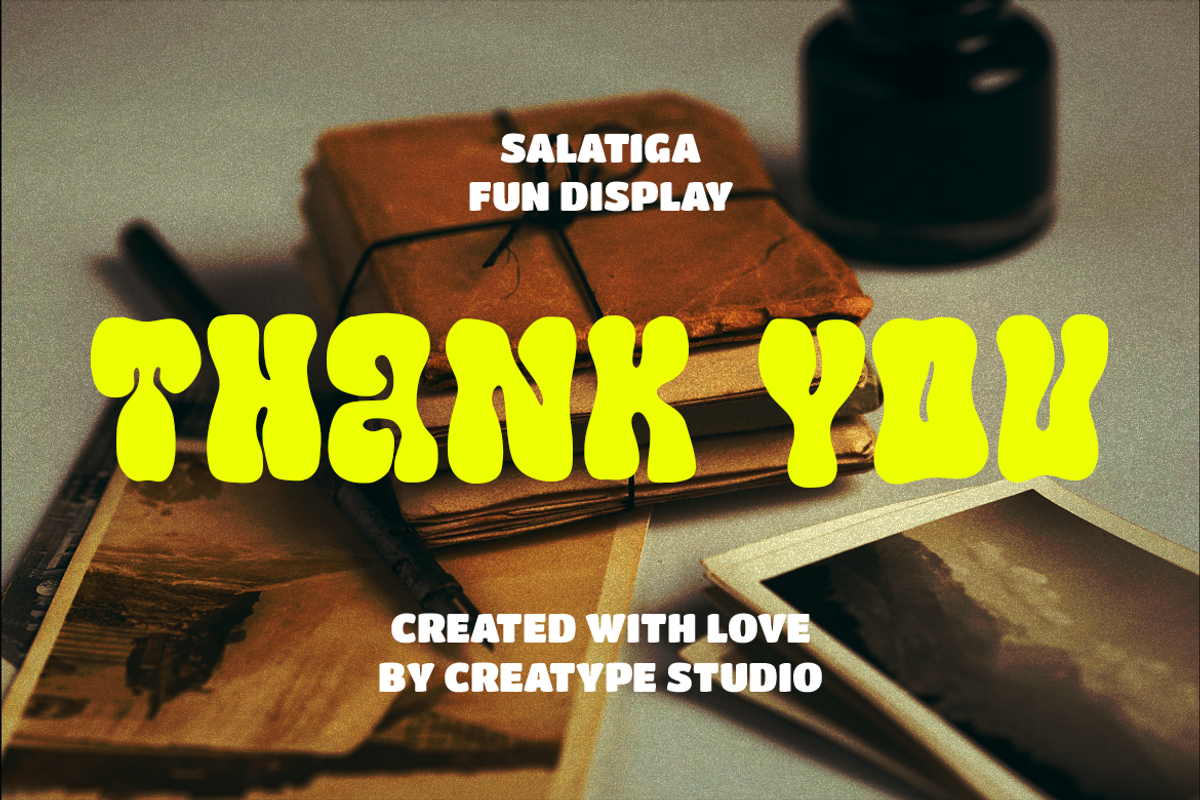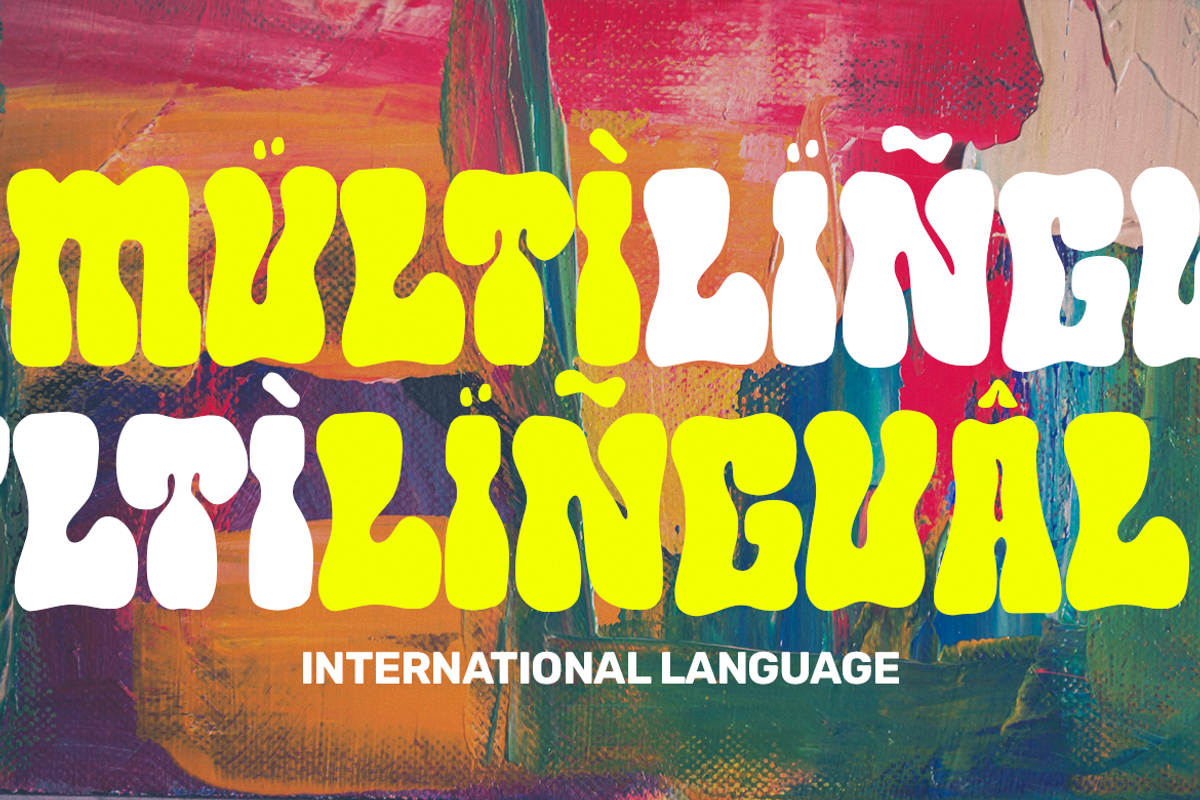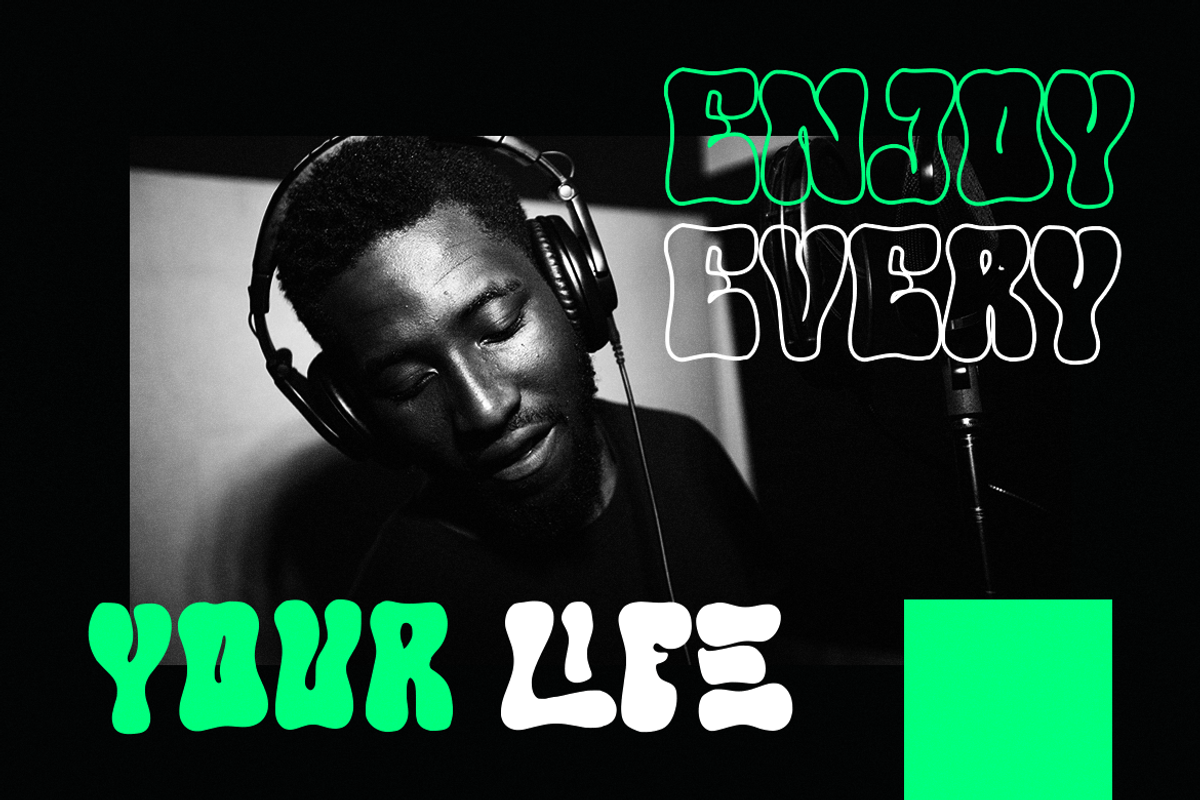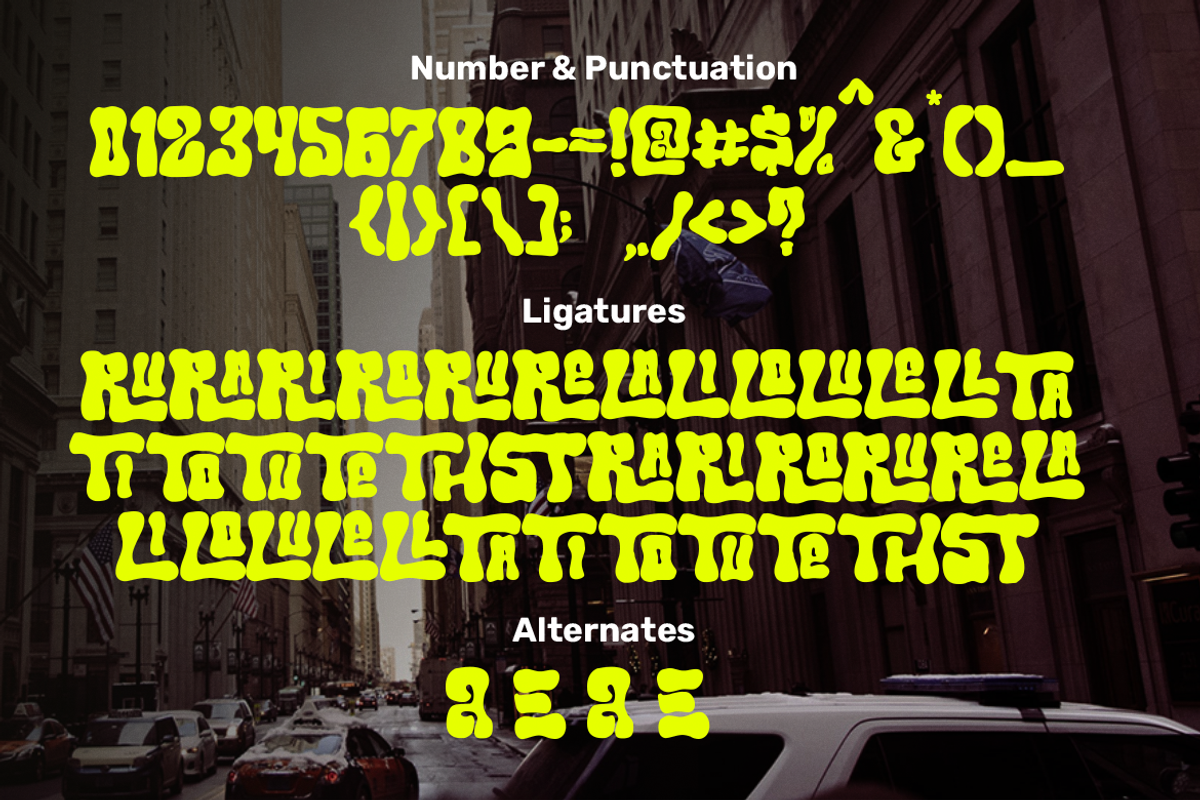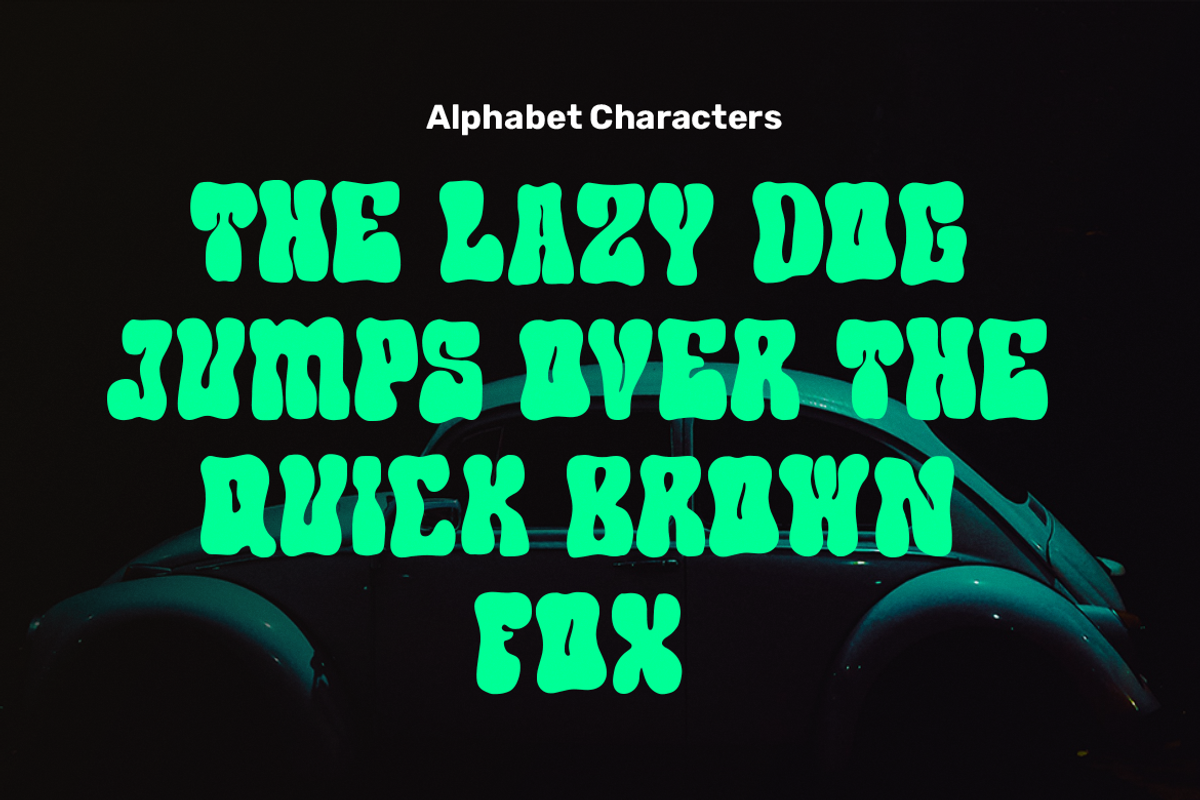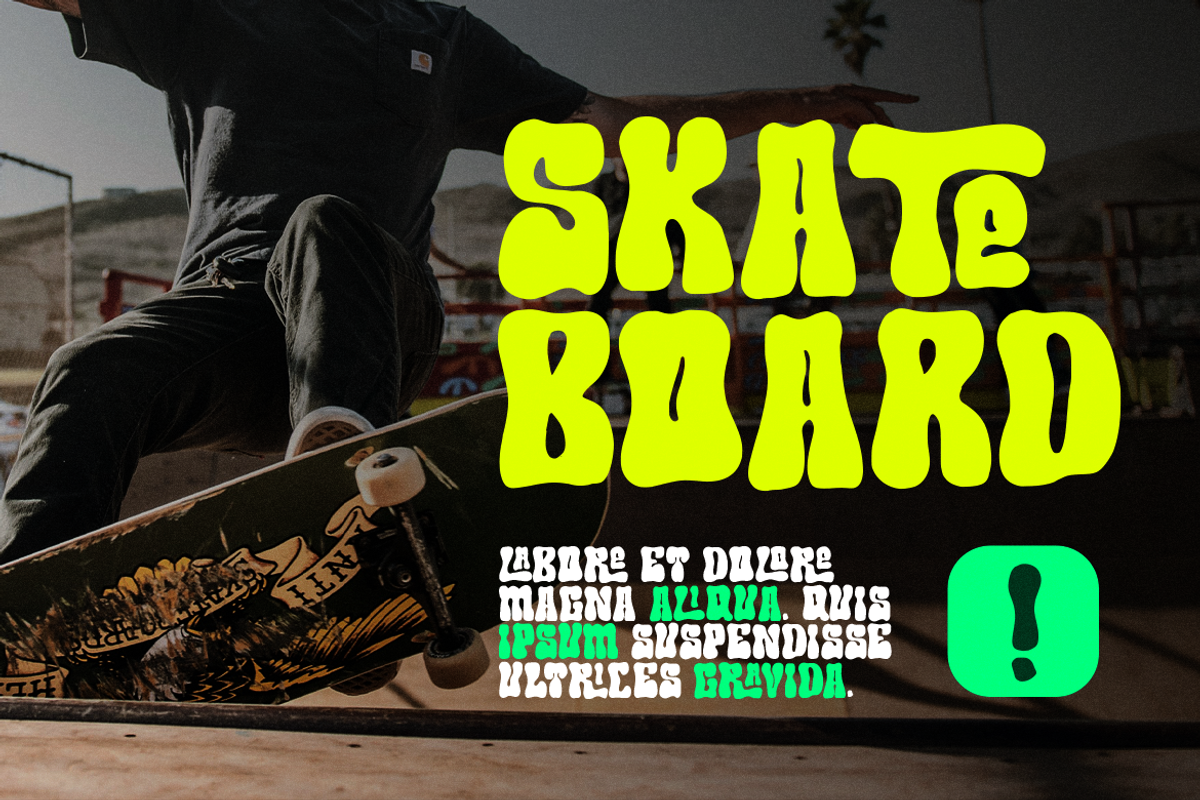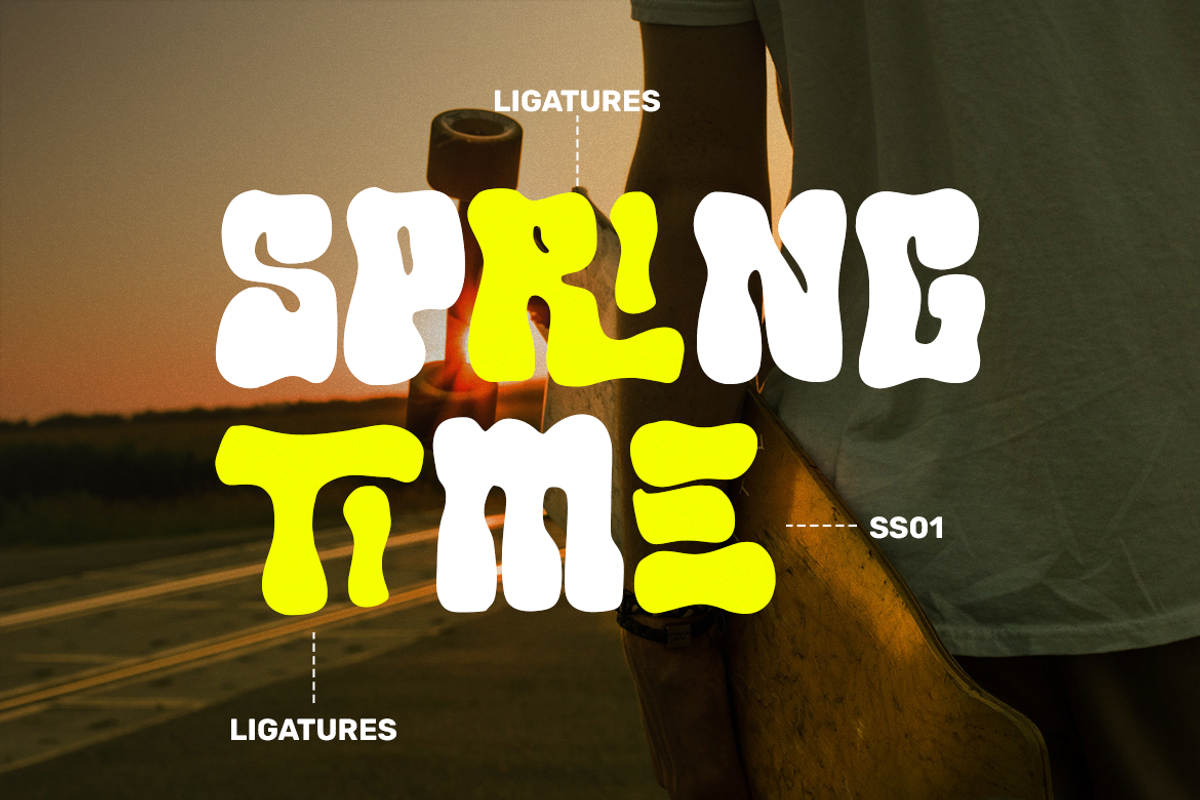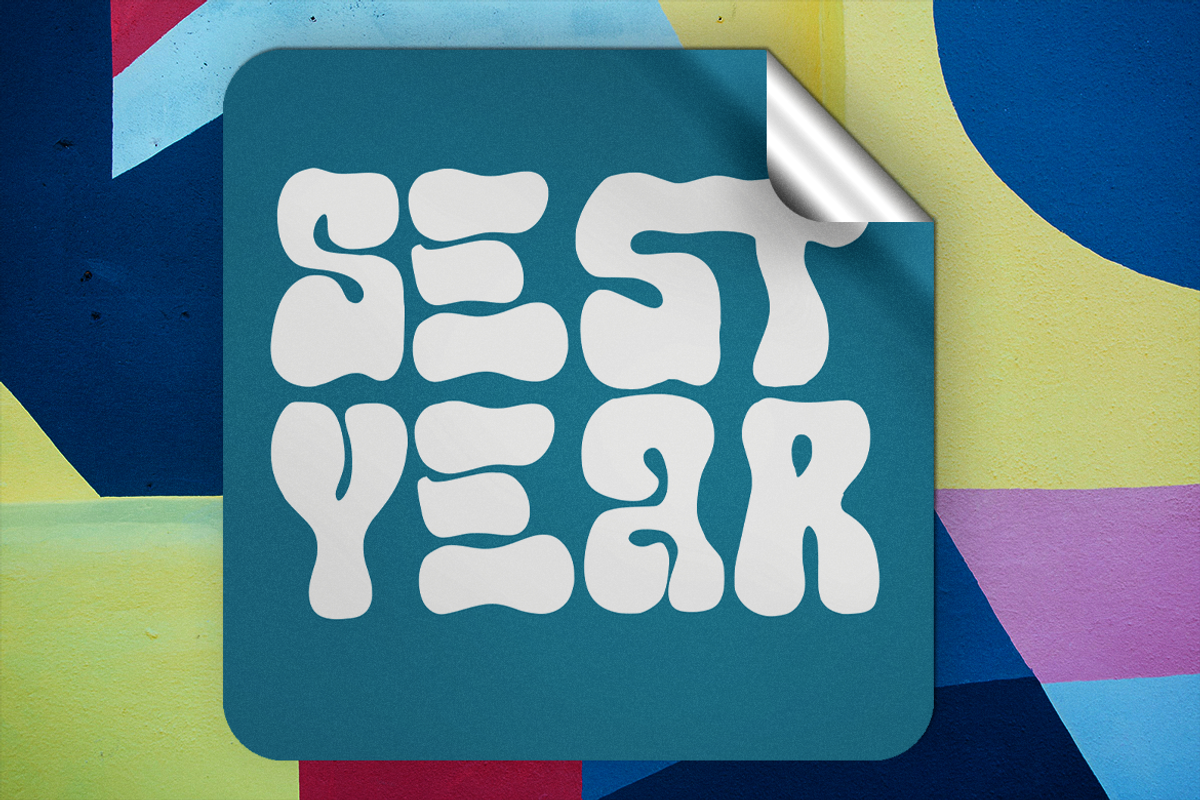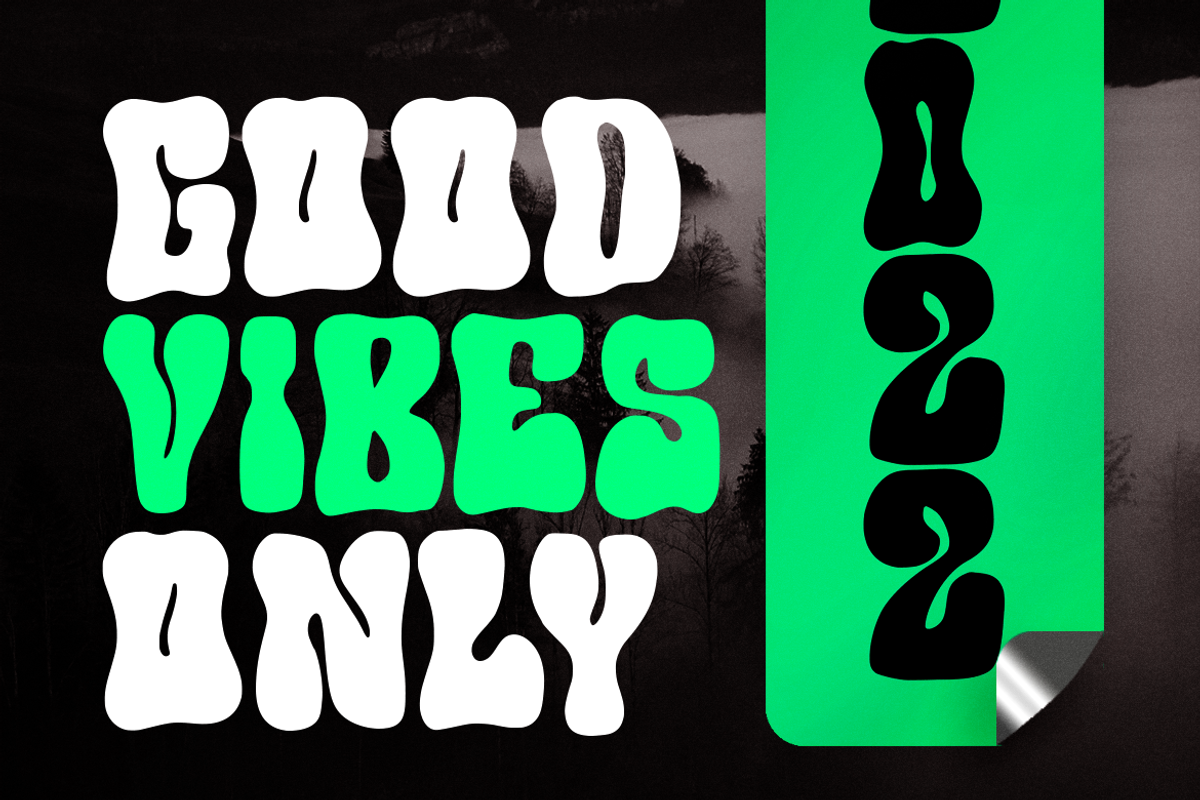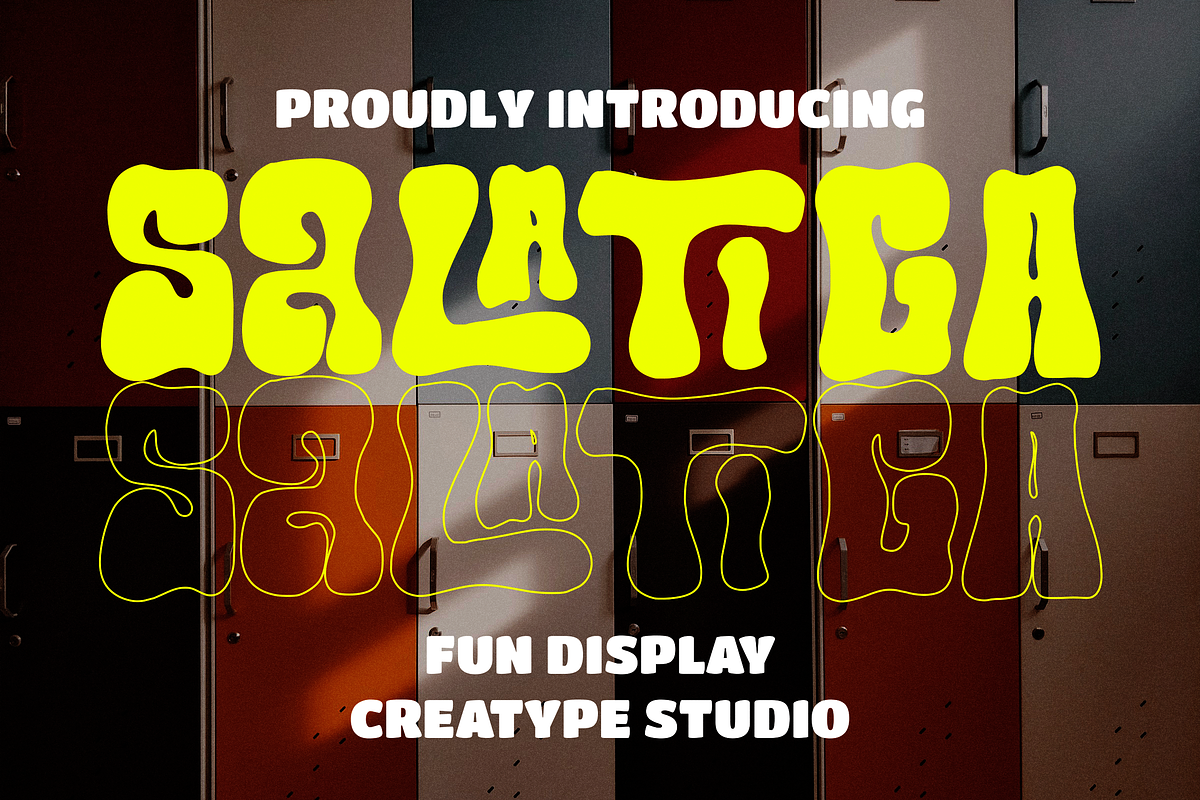
Salatiga Display Fun
The next level of fun display font introduces Salatiga. The bulky and attractive looks emphasize the fun side of your design. This typeface that Creatype made is perfect for your outstanding design projects.
Salatiga is perfect for branding projects, logo, wedding designs, social media posts, advertisements, product packaging, product designs, label, photography, watermark, invitation, stationery and any projects that need handwriting taste.
- Ligature & Alternate